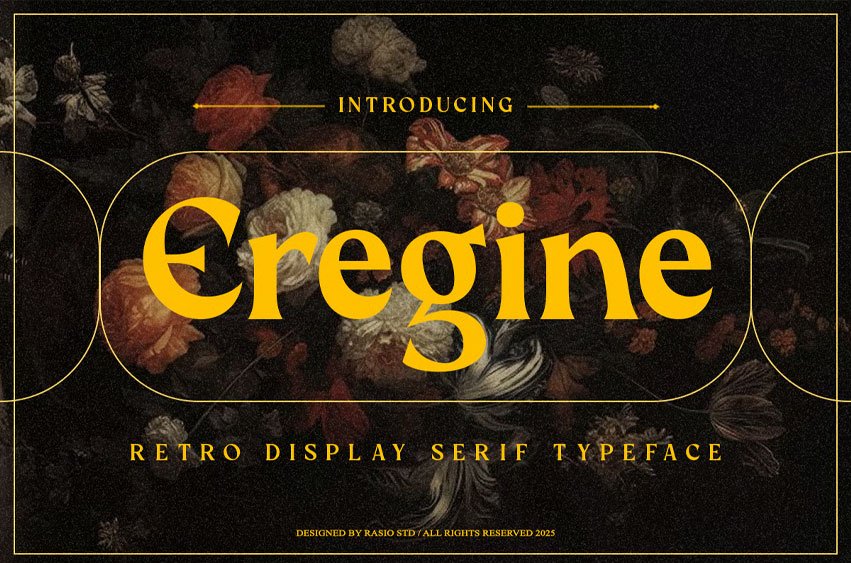
Eregine Font is a retro-inspired display serif typeface featuring strong contrast, elegant curves, and classic letterforms rooted in vintage editorial design. This typeface includes complete uppercase and lowercase characters, numerals, punctuation, multilingual accents, and refined alternates for expressive typographic compositions. Each glyph is crafted with high attention to detail, combining bold retro charm with modern legibility suitable for both digital and print use.
Relevance and Use Cases is perfect for designers who need a bold, expressive serif with retro-classic aesthetics for branding, logo design, posters, packaging, editorial layouts, restaurant branding, boutique identities, social media graphics, signage, merchandise, and creative promotional materials. Its strong shapes and refined contrast make it ideal for any project that aims to evoke nostalgia, sophistication, and visual impact.
- Ligatures & Alternate